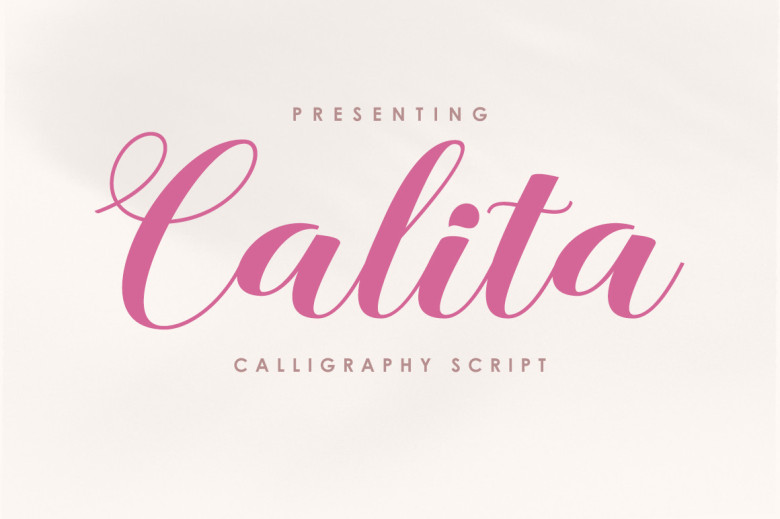
Calita Font
Calita Calligraphy Modern thick style and thick that you can get now! with character replacement style update design with special glyphs have been given a combination of fantasy and write ink. so it will look beautiful on al designs, New year design, Wedding, branding materials, blog title, quote and invitation, business card
Calita Calligraphy Font